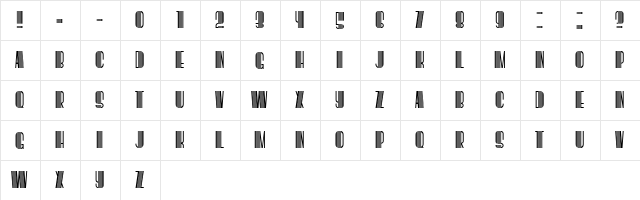
Boogie Woogie Regular
Design Context for Boogie Woogie Typeface
Boogie Woogie is a composed and adaptable typeface that performs quietly and consistently across a wide range of design contexts.